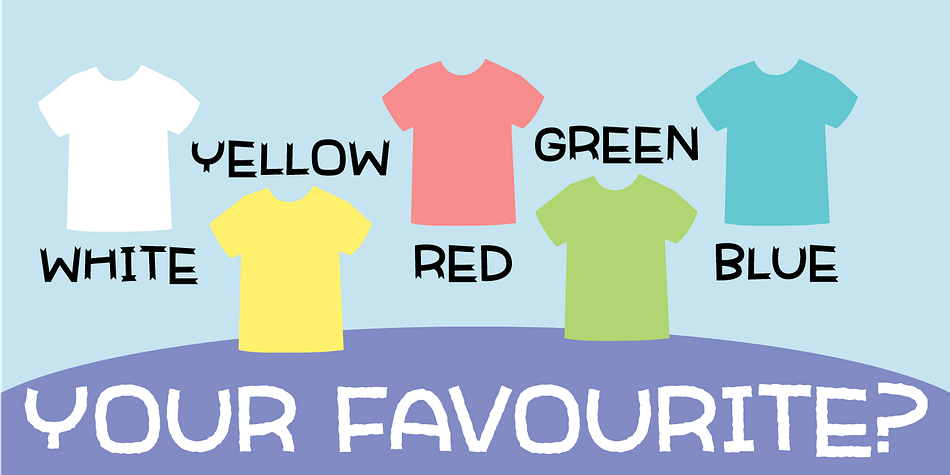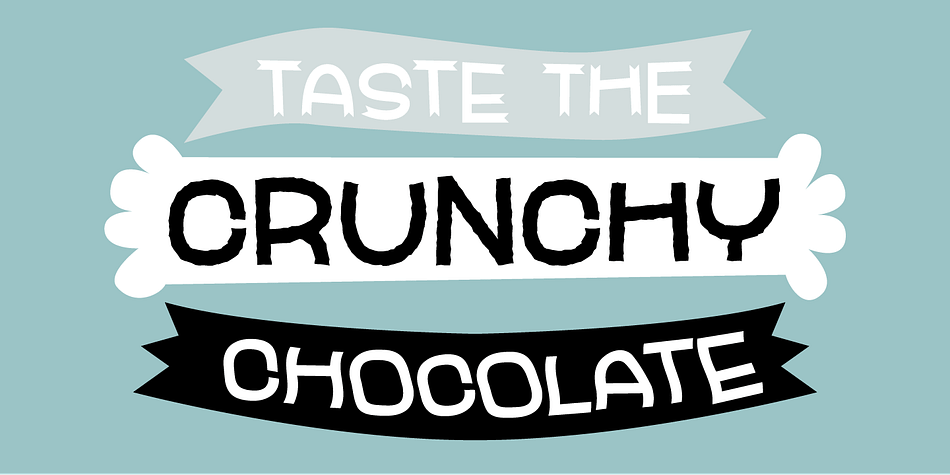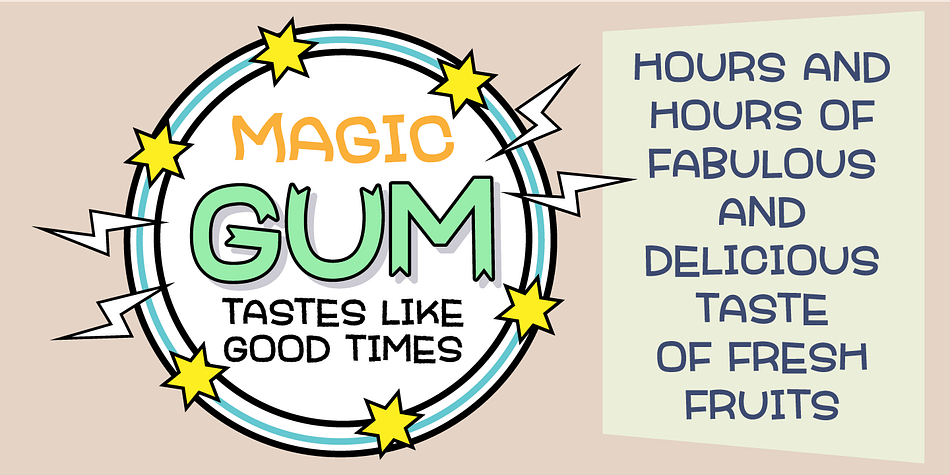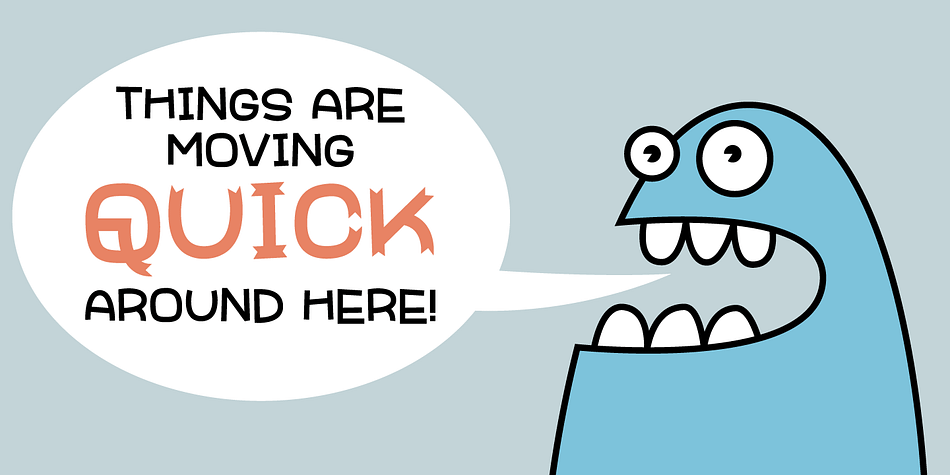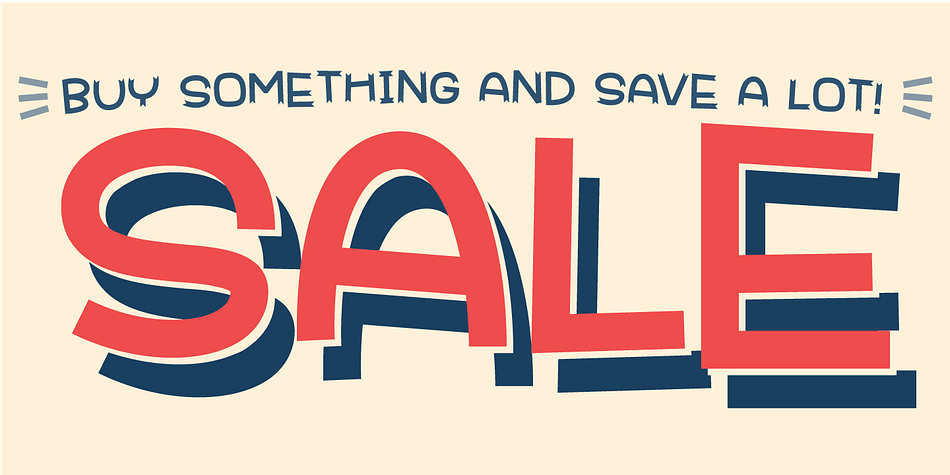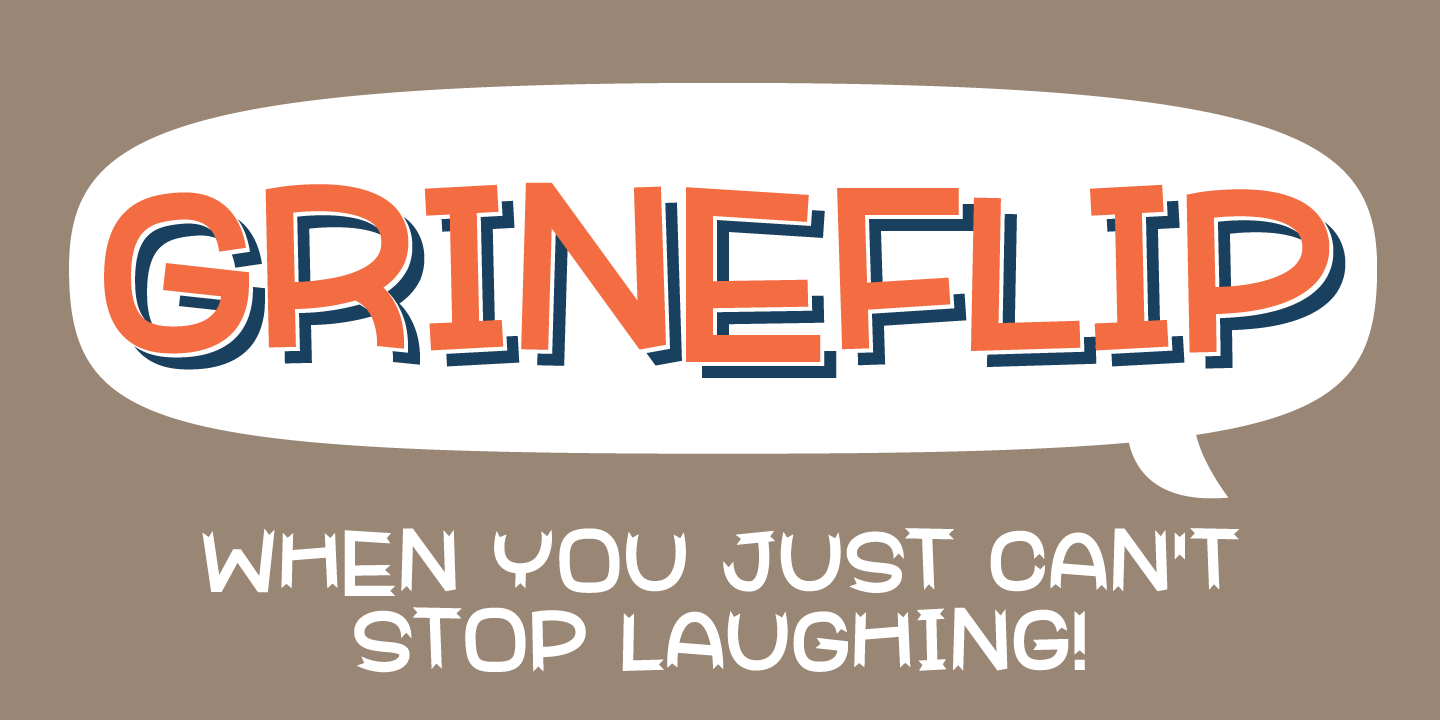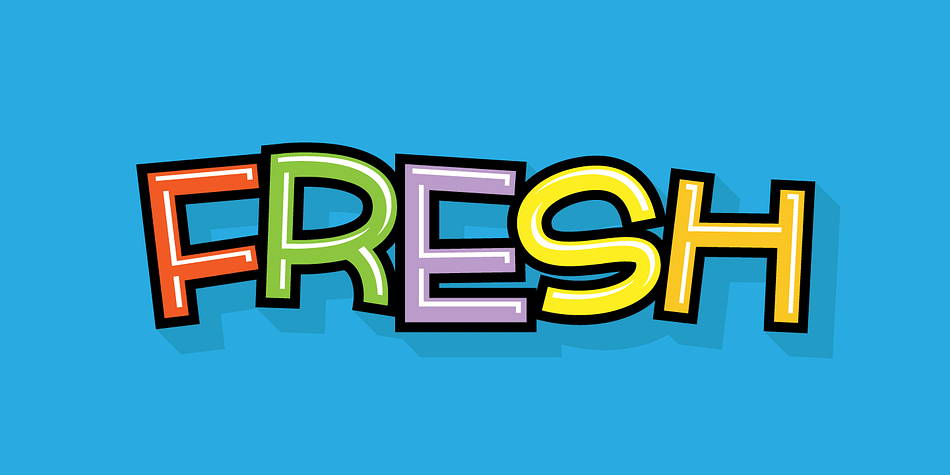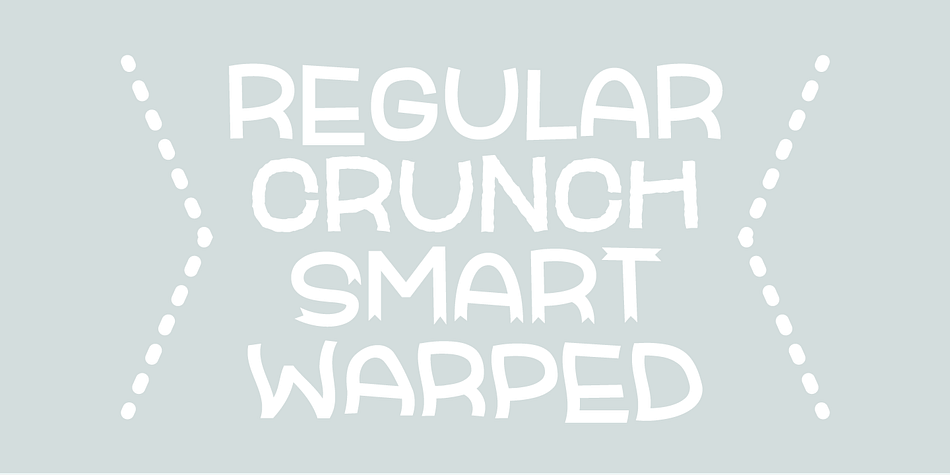
Designed by Jakob Fischer, Grineflip is a comic and hand display font family. This typeface has four styles and was published by Pizzadude.dk.
Know that feeling when you just can’t stop laughing? Well, that is what Grineflip (in danish) is all about. The font has got that feeling as well - a kind of feeling that makes you happy. Enjoy this comic font that has its inspiration from both comics and grafitti. Use for something that needs a happy attitude!